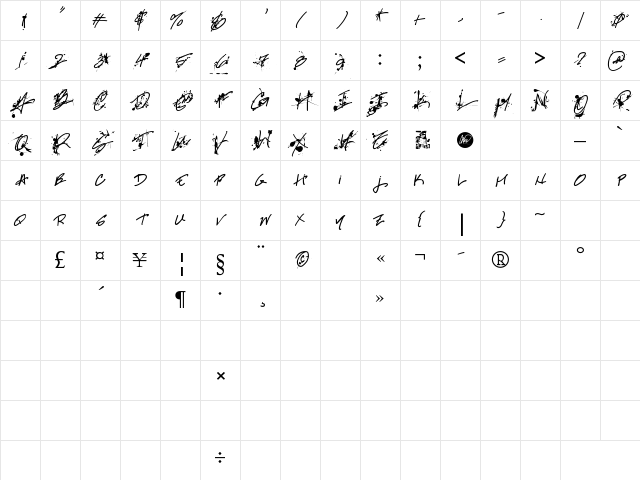
Professional Muse Regular Free Font
Professional Muse Regular
Complete Professional Muse Regular glyph index. Displaying only characters natively supported by Professional Muse Regular font.
Design Context for Professional Muse
Professional Muse is a composed and adaptable typeface that performs quietly and consistently across a wide range of design contexts.